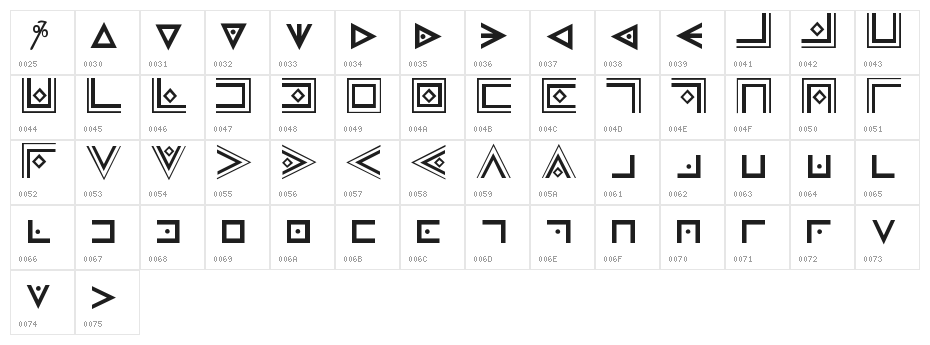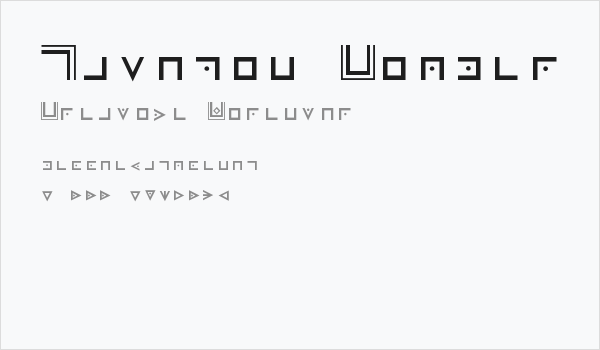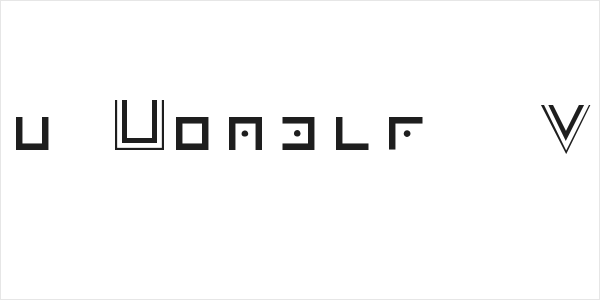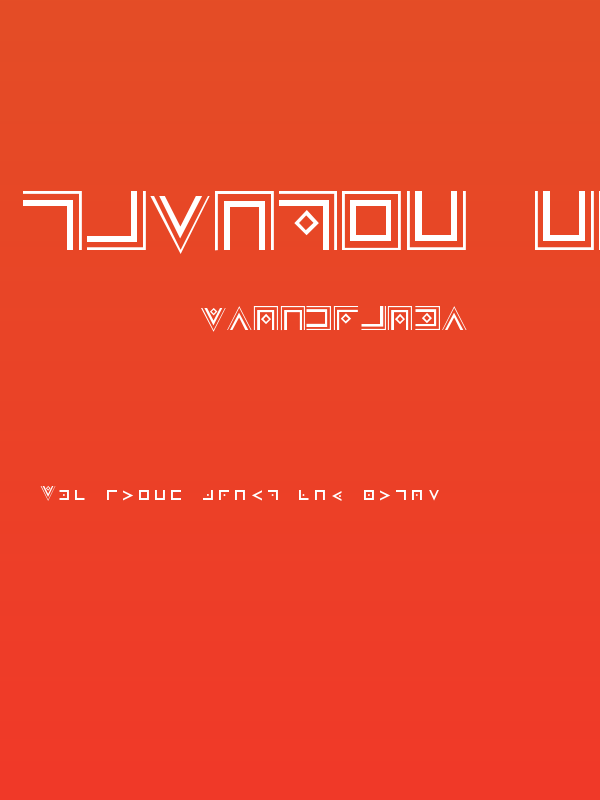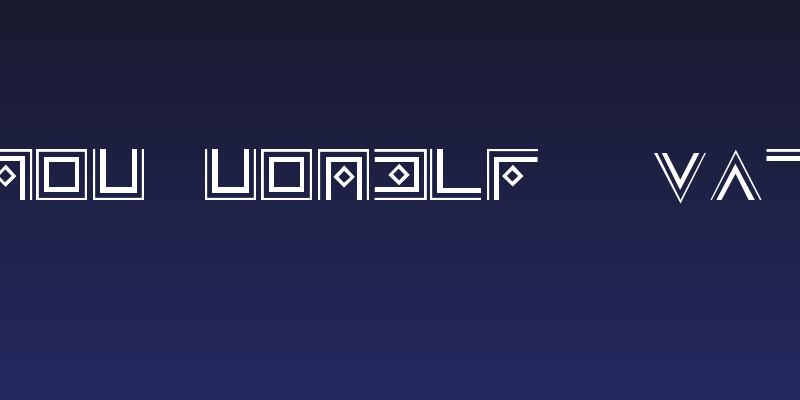
Masonic Cipher & Symbols Font
Masonic Cipher & Symbols Description
This set of symbols is inspired by Masonic cipher designs, featuring geometric shapes and lines that create a cryptic and mysterious appearance. The characters are composed of straight lines and angles, often incorporating dots and enclosed shapes that resemble ancient or esoteric symbols. The overall design is highly decorative, with a focus on symmetry and balance. Each symbol is distinct, yet they all share a cohesive style that suggests secrecy and tradition. The symbols are bold and striking, making them suitable for projects that require an enigmatic or historical aesthetic.
| Use Case | Logos, Decorative elements |
| Proposed Projects | Ideal for use in themed escape rooms, mystery games, or as decorative elements in designs related to history or secret societies. |